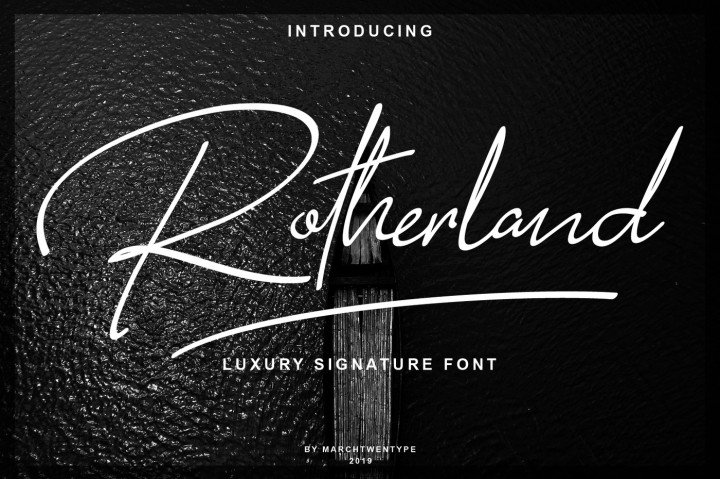
Rotherland Signature Font
Hello Guys! This is an luxury signature script font. It has a classic feel and a natural writing style. A signature font perfect for all your design and print projects. Introducing Rotherland Font. The Rotherland is a handwritten luxury signature script with a natural and clean flow on each line. Its included ligatures and simple swashes makes it suitable for any project! It’s suitable for logos, watermarks on photography, signatures, quotes, album covers, business cards, clothing, magazines, posters and much more!